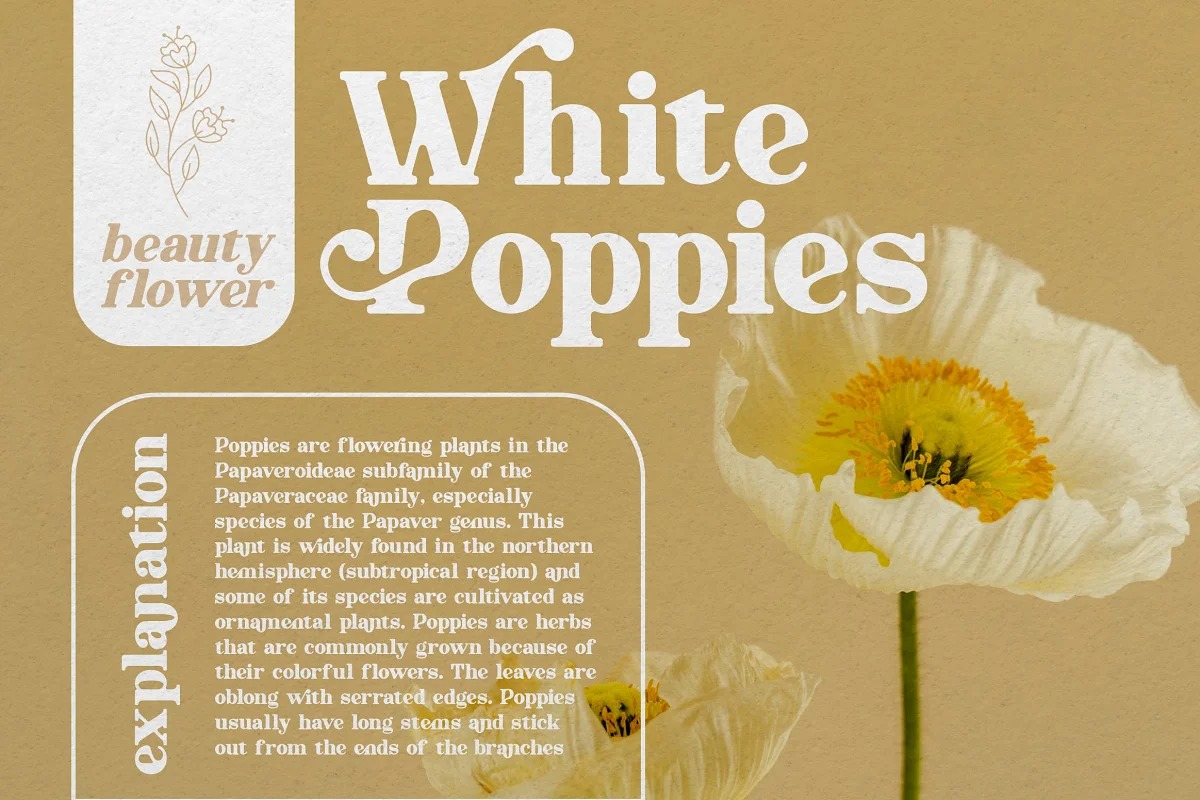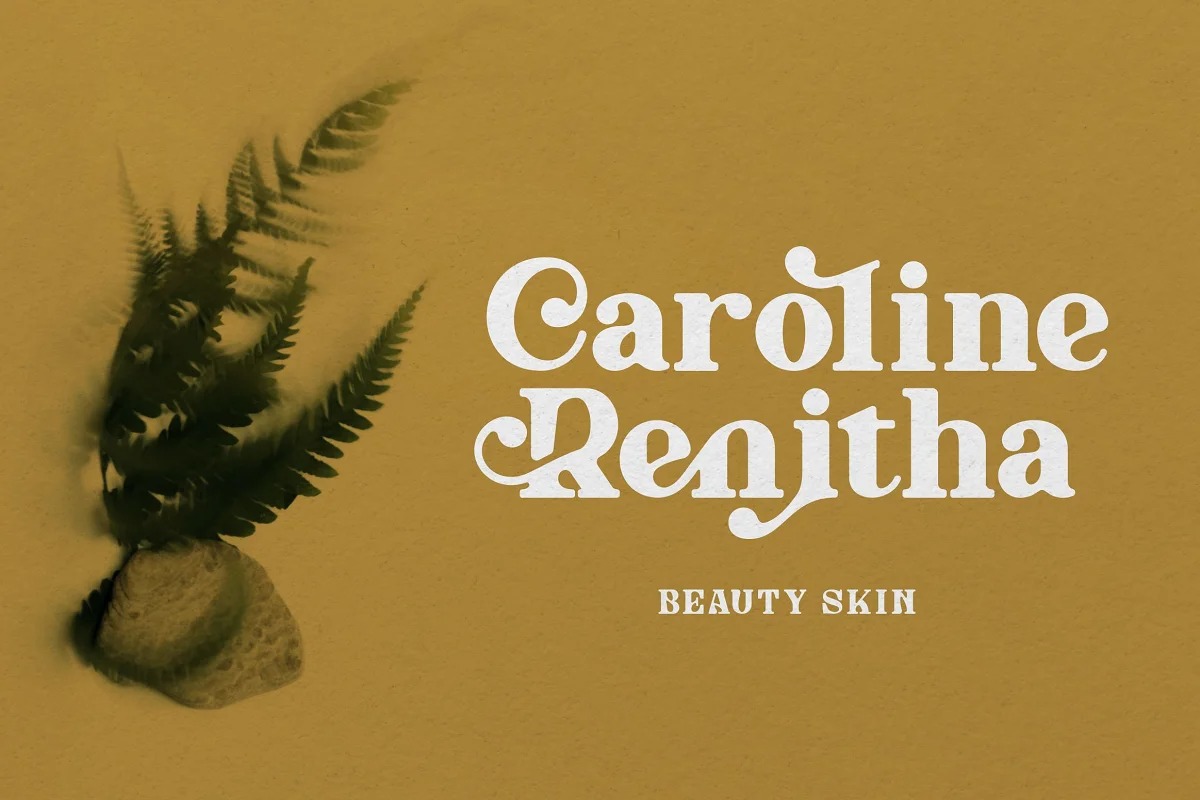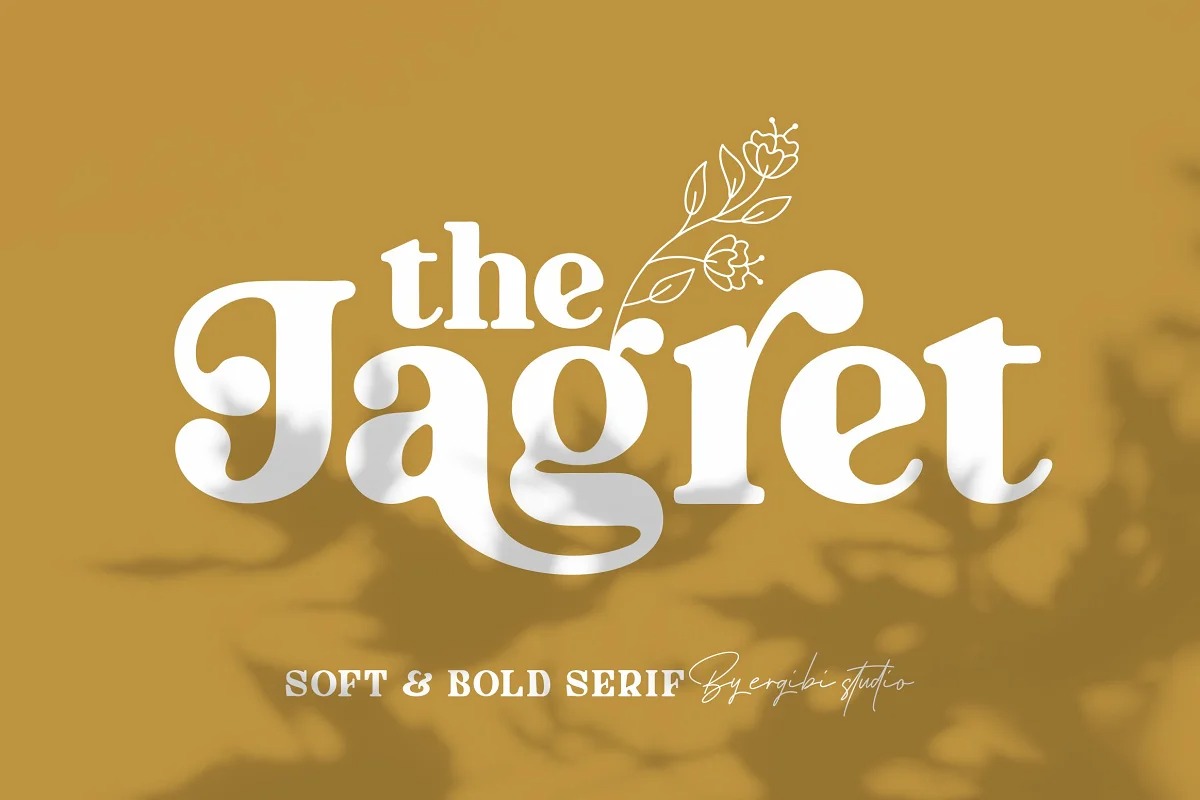
The Jagret Serif Font is a bold vintage-style serif font created by ErgibiStudio with strong confidence. The many alternate character on serif makes this typeface unique and stands out rather than the regular sans font, perfectly for headlines, logos, posters, packaging, T-shirts,coffee shops, restaurants, magazine’s headers, signs or gift/post cards,cafe’s and weddings or any type of advertising purpose.With italic version that you can use as a complimentary!